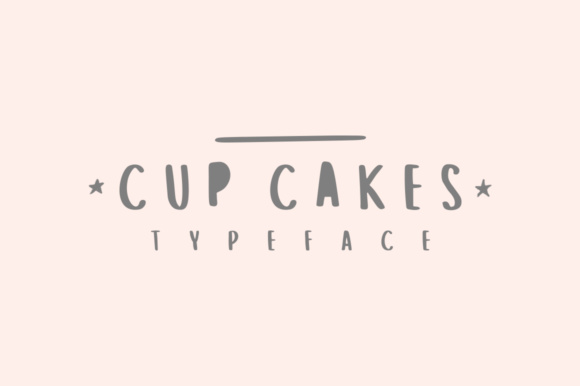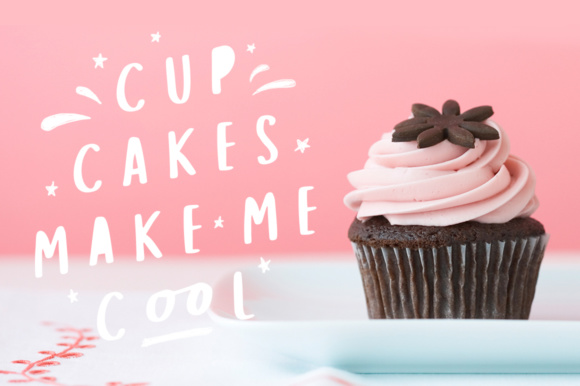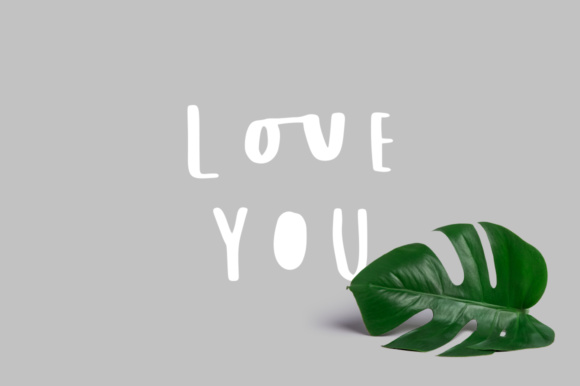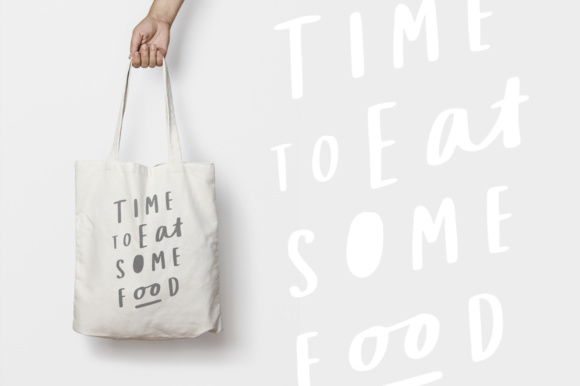
Cup Cakes Font: A Cute Handwritten Sans Serif for Cricut & DIY Projects
About the Cup Cakes Font
Presenting Cup Cakes Font, a unique and stylish typeface that will make your work stand out. Cup Cakes is a handwritten sans serif font. Cup Cakes is very simple and fun to use! Cup Cakes is perfect for creating quotes, logos, badges, packaging, headlines, and much more!
Its playful, slightly quirky nature makes Cup Cakes ideal for projects requiring a friendly, approachable aesthetic. Think children’s books, branding for bakeries or craft businesses, invitations, and short, impactful headlines. However, its informal style is less suitable for body text or applications demanding high readability, such as websites or long-form publications.
Pairing Cup Cakes with a clean sans-serif like Open Sans for body copy creates a balanced design. For a more sophisticated look, consider pairing it with a classic serif font such as Garamond for contrast. A geometric sans-serif like Montserrat could also work well, providing a modern counterpoint to Cup Cakes’ handwritten charm.
Cup Cakes’ overall personality is best described as cheerful and informal. It projects a sense of warmth and handmade quality, making it particularly well-suited for brands that wish to convey a friendly, approachable, and slightly whimsical image.
Cup Cakes Font Usage Examples
Cup Cakes Font Example